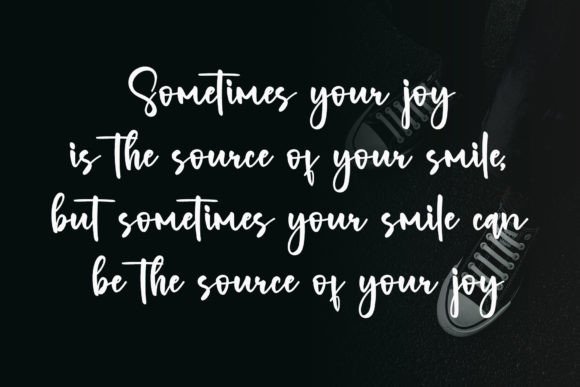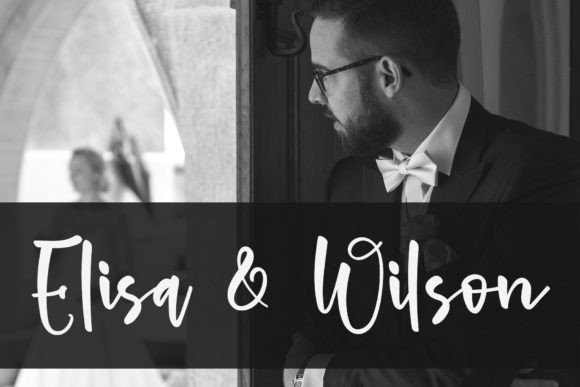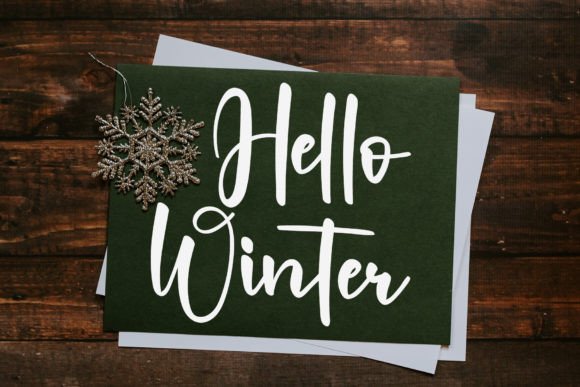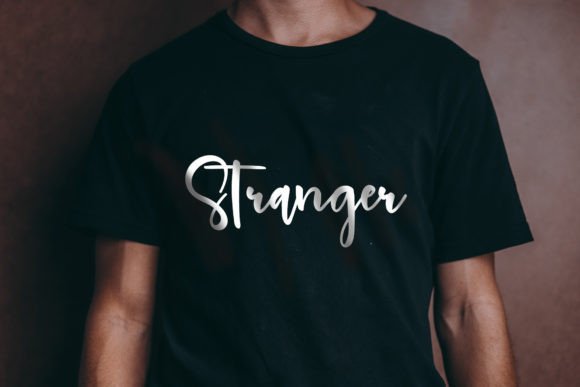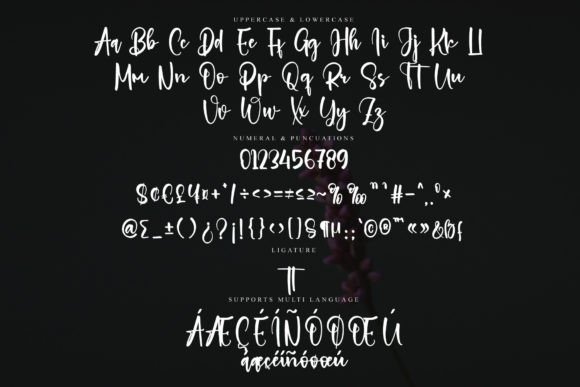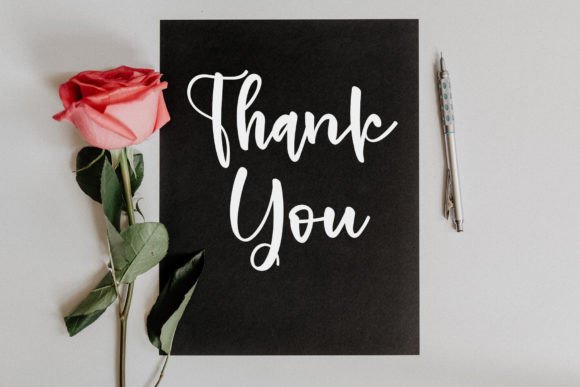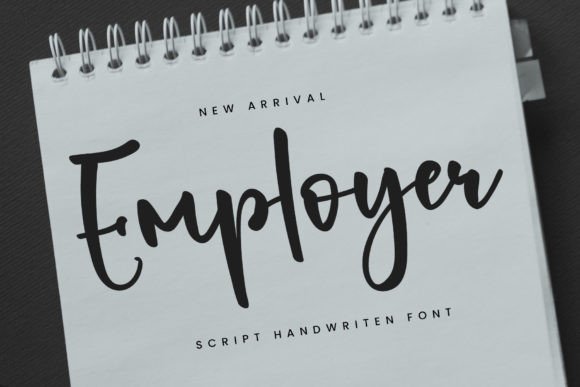
Introducing Employer Font: The Sweet and Cursive Handwritten Font for Elegant Designs
Are you looking for a font that can add a touch of elegance and romance to your designs? Look no further than Employer Font, a sweet and cursive handwritten font that is perfect for a variety of design projects. With its gentle and flowing curves, Employer Font is sure to make your designs stand out and leave a lasting impression.
What Makes Employer Font Special?
Employer Font is a unique and versatile font that can be used for a wide range of design ideas. Its cursive and handwritten style gives it a personal and human touch, making it perfect for designs that require a touch of elegance and sophistication. Whether you’re working on a branding project, a wedding invitation, or a fashion lookbook, Employer Font is sure to add a joyful and romantic touch to your designs.
Employer Font is a highly versatile font that can be used for a variety of design projects, including:
- Branding: Use Employer Font to create a unique and memorable brand identity that stands out from the crowd.
- Wedding Things: Add a touch of romance and elegance to your wedding invitations, wedding cards, and other wedding-related designs.
- Greeting Cards: Use Employer Font to create beautiful and heartfelt greeting cards for special occasions.
- Fashion: Perfect for fashion brands, lookbooks, and marketing promotions that require a touch of elegance and sophistication.
- Marketing Promotion: Use Employer Font to create eye-catching and effective marketing materials that grab attention and leave a lasting impression.
Why Choose Employer Font?
There are many reasons why Employer Font is a great choice for your design projects. Here are just a few:
- Elegant and Sophisticated: Employer Font has a elegant and sophisticated style that is perfect for designs that require a touch of luxury and refinement.
- Cursive and Handwritten: The cursive and handwritten style of Employer Font gives it a personal and human touch that is perfect for designs that require a touch of warmth and personality.
- Highly Versatile: Employer Font can be used for a wide range of design projects, from branding and wedding designs to fashion and marketing materials.
- Easy to Read: Despite its elegant and cursive style, Employer Font is highly legible and easy to read, making it perfect for designs that require a clear and concise message.
Tips for Using Employer Font
Here are a few tips for using Employer Font in your design projects:
- Use it as a Headline Font: Employer Font is perfect for use as a headline font, where its elegant and cursive style can really make your designs stand out.
- Pair it with a Sans-Serif Font: For body text, consider pairing Employer Font with a sans-serif font to create a nice contrast and add visual interest to your designs.
- Experiment with Colors: Employer Font looks great in a variety of colors, so don’t be afraid to experiment and find the perfect color to match your brand or design.
In conclusion, Employer Font is a sweet and cursive handwritten font that is perfect for designers and crafters looking to add a touch of elegance and romance to their designs. With its highly versatile style and ease of use, Employer Font is sure to become a favorite in your design toolkit. So why wait? Download Employer Font today and start creating beautiful and elegant designs that will leave a lasting impression!